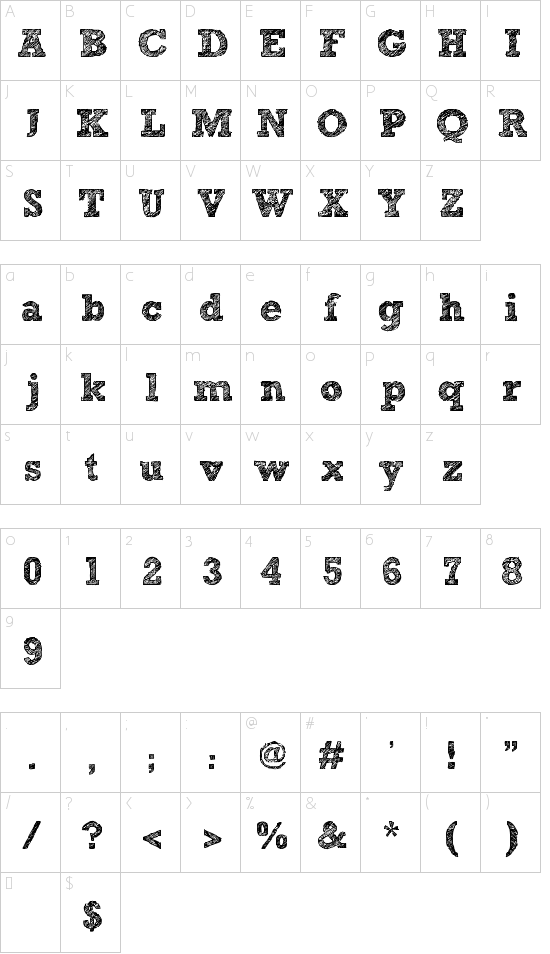
Rockwell is a slab serif typeface designed in 1934 by Monotype The design is based off an earlier slab serif from 1910 known as Litho Antique, which is considered the very first geometric slab serifThe Rockwell family is available in three weights with corresponding italics, as well as a condensed version.
RockwellBoldRegularFontMongerRockwell Bold0 0RockwellBold. Download Popular Fonts The 10 most popular fonts right now Rockwell Extra Bold Comments. Sánchez is the Latinotype’s first display type family It is a serif typeface belonging to the classification slab serif, or Egyptian, that bears a strong resemblance to the iconic Rockwell, but with rounded edges— offering contrast and balance to the square structure.
Rockwell is a slab serif typeface designed by the Monotype Corporation and released in 1934 The project was supervised by Monotype's engineering manager Frank Hinman PierpontThis typeface is distinguished by a serif at the apex of the uppercase A, while the lowercase a has two storeys Because of its monoweighted stroke, Rockwell is used primarily for display or at small sizes rather than as. 2 minutes to read;. The best website for free highquality Rockwell Shadow fonts, with 28 free Rockwell Shadow fonts for immediate download, and 61 professional Rockwell Shadow fonts for the best price on the Web.